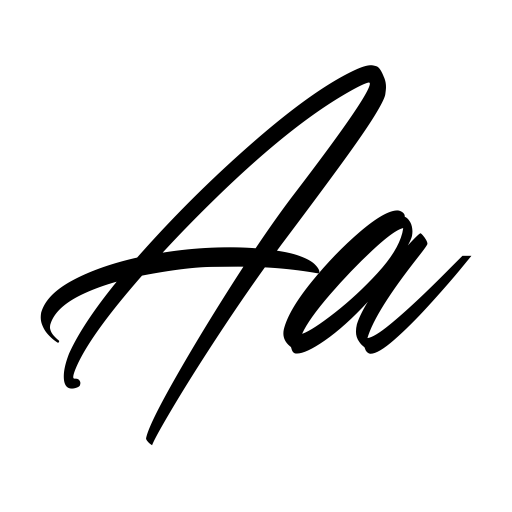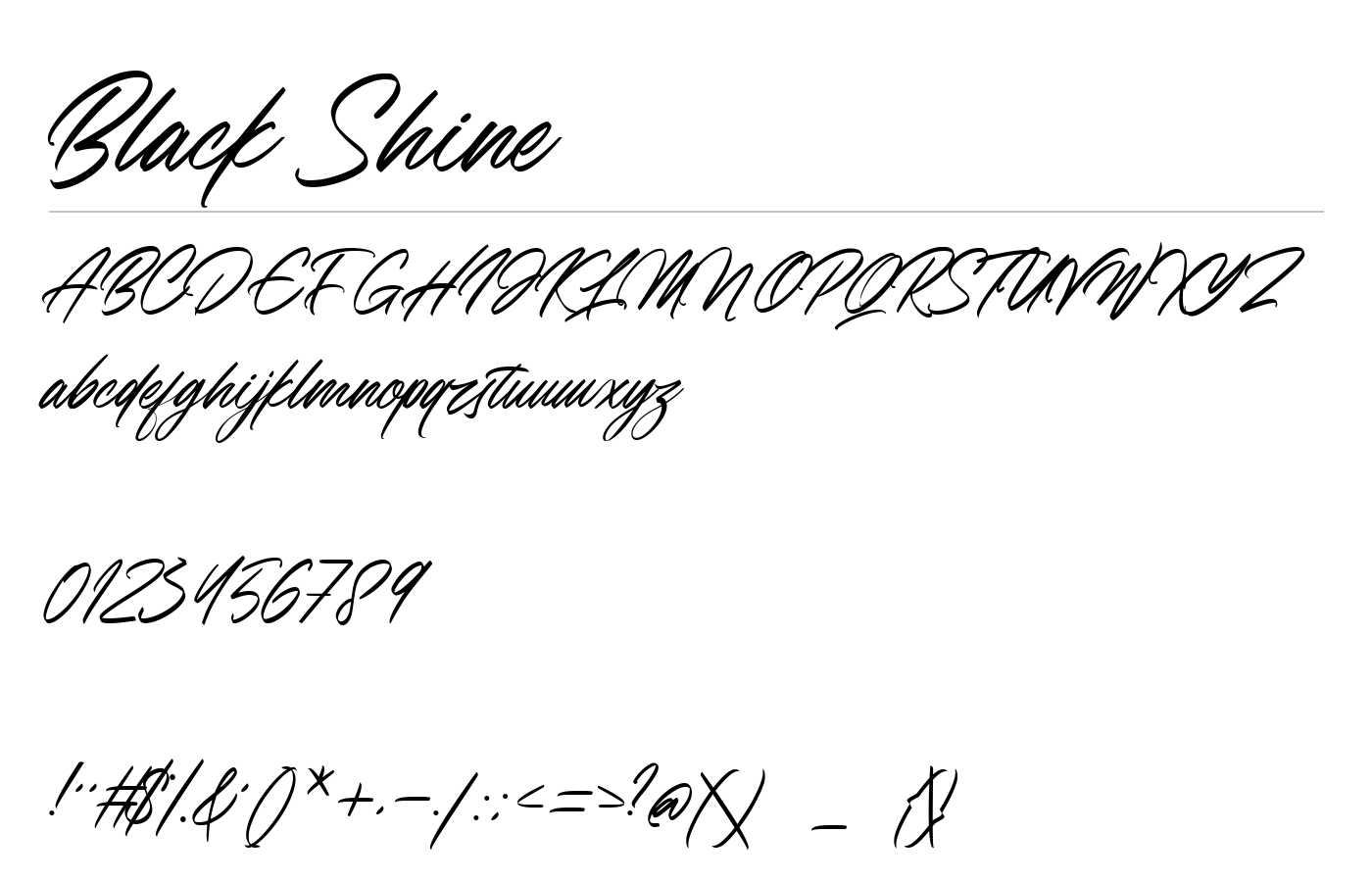
Black Shine is a stylish, cursive script font with a smooth, flowing feel that combines elegance with a lively touch. Its slanted, hand-drawn letterforms and moderate weight make it perfect for creative branding, invitations, and headlines where a personal, sophisticated vibe is desired. This font works well for projects that want to convey charm and flair while maintaining readability and a modern aesthetic.
Black Shine Font
About Black Shine Font
| Font family | Black Shine Font |
| Designer | DENIS |